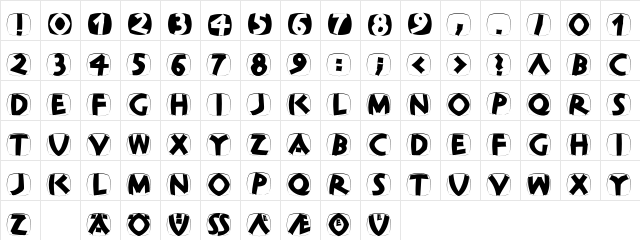
ClassiCapsShields Regular
Design Context for ClassiCapsShields Typeface
ClassiCapsShields has the warm character of retro typography — evoking diners, record sleeves, and the golden age of print advertising.
Font Pairing: Combine ClassiCapsShields with a simple slab or neutral sans — period-accurate companions reinforce the vintage feel without competing for attention.
Pro Tip: Lean into ClassiCapsShields's period character by pairing it with aged paper textures, muted colour palettes, and vintage illustration styles.